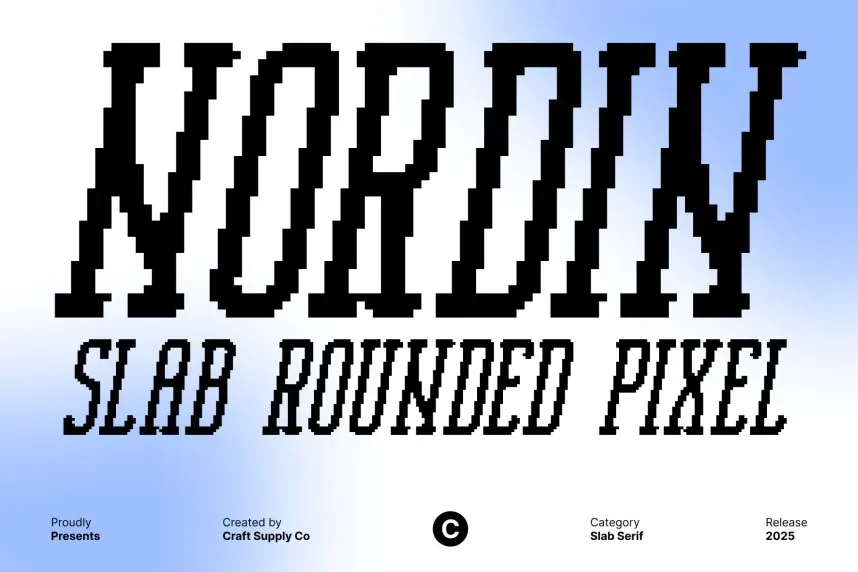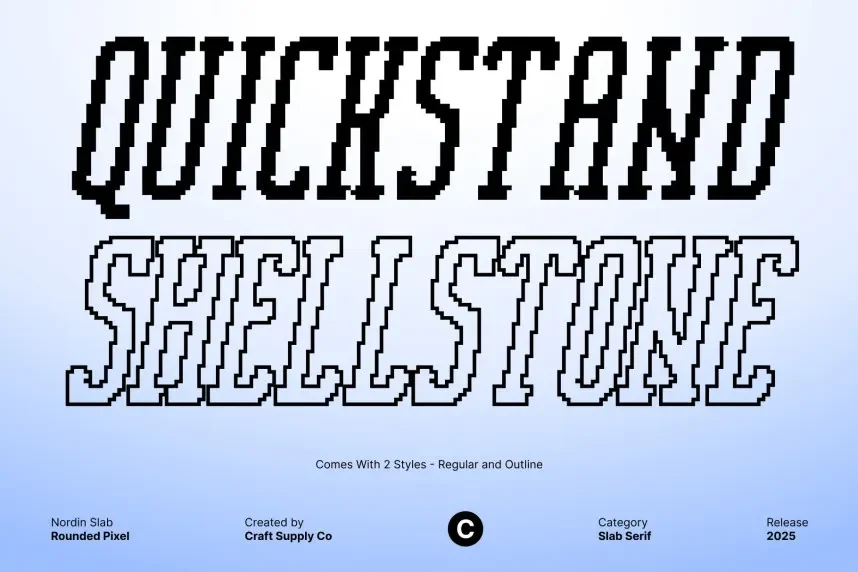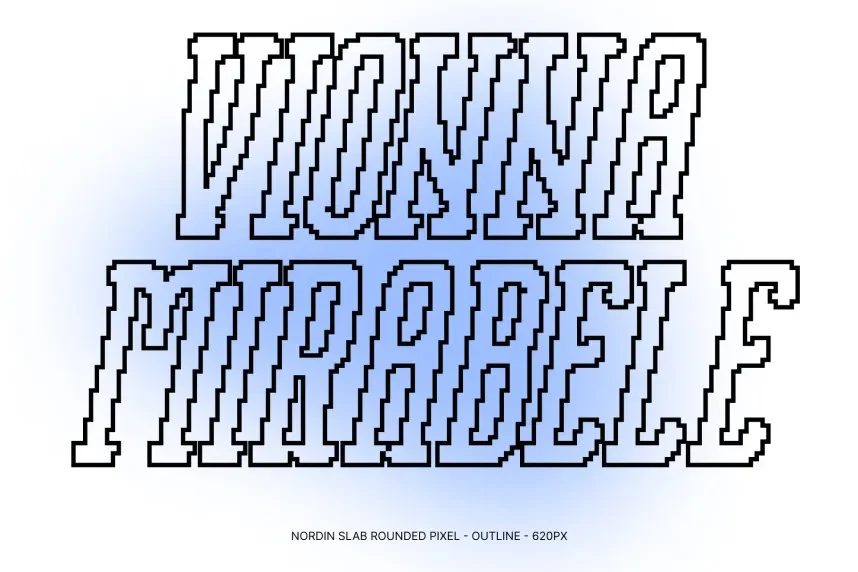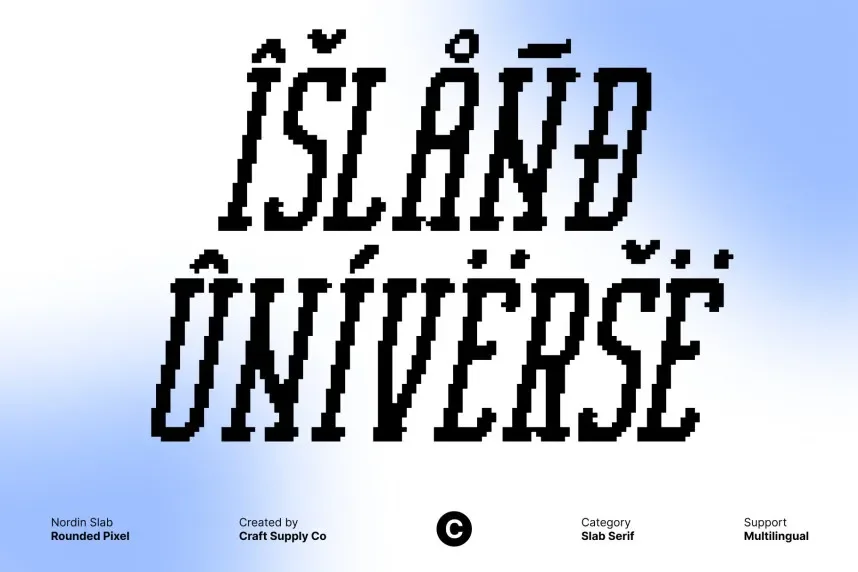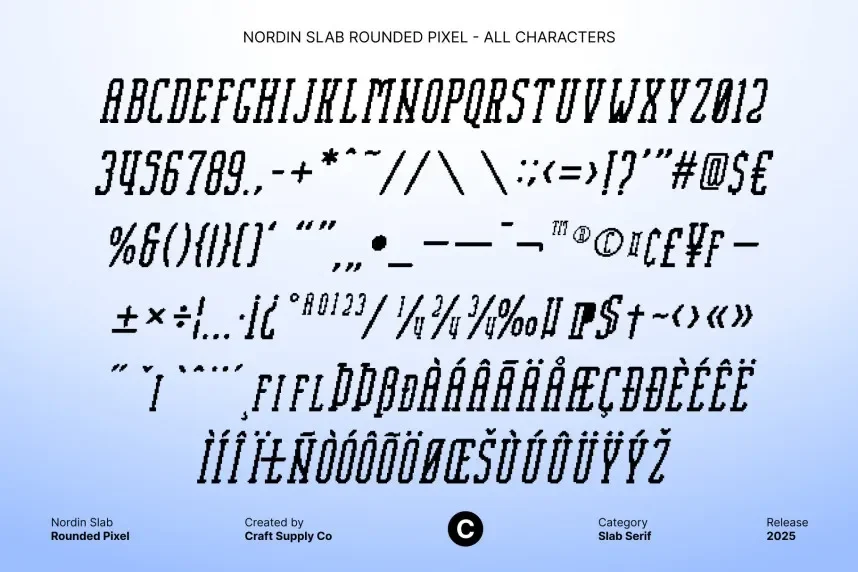
Nordin Slab Rounded Pixel Font addresses the challenge of rigid pixel fonts appearing too harsh in modern retro designs. Rounded edges help soften the visual output.
This font combines pixel structure with slab-style proportions, featuring rounded corners and stable spacing. The slab influence adds weight, while pixel constraints maintain grid alignment.